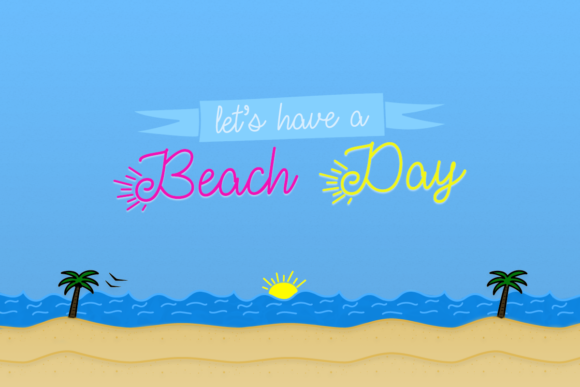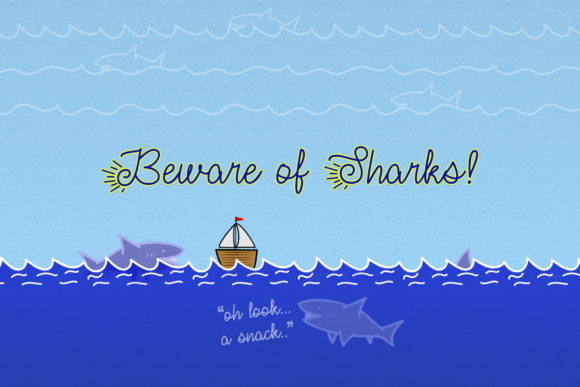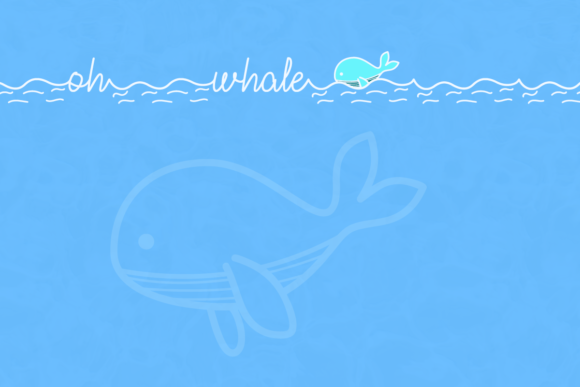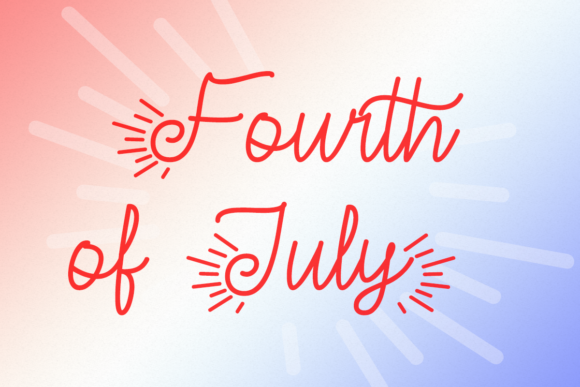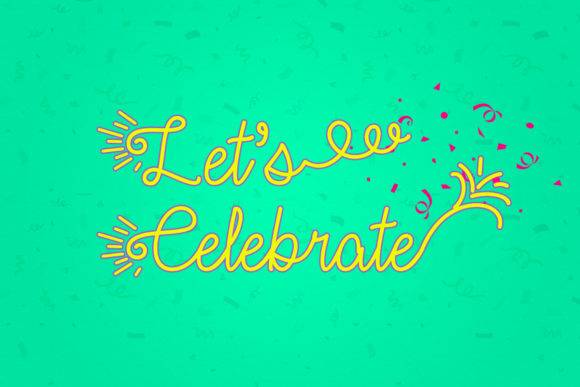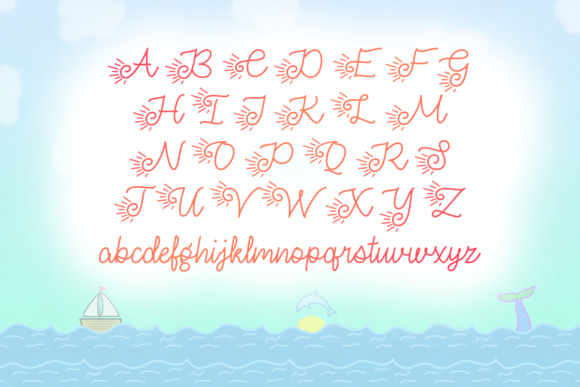
Introduction to Make Summer Fun Font
Do you remember the feeling of excitement when you’re working on a creative project and everything just falls into place? The sun is shining, your favorite music is playing, and your imagination is running wild. For designers, these moments are what make the long hours and late nights worth it. And, sometimes, all it takes is the right font to bring your vision to life.
Enter the Make Summer Fun Font, a beautiful cursive typeface that’s sure to add a touch of magic to your designs. With its timeless elegance and authentic calligraphy, this font is the perfect combination of classic style and friendly feel. Plus, with its cute summer-themed doodles, it’s the perfect design resource for creating original and outstanding designs that stand out from the crowd.
Key Features of Make Summer Fun Font
- Unique and playful design elements to add a touch of summer fun to your creative project
- Perfect for designers and artists looking to add a fun and carefree vibe to their work
Honest Review: Make Summer Fun Font
I recently stumbled upon the Make Summer Fun Font, and I must say it’s been a great addition to my design resources. This font is perfect for creating eye-catching visuals for summer-themed projects, such as advertisements, social media posts, or even a fun birthday party invitation. With its playful and vibrant aesthetic, I can already imagine it adding a lot of fun to my creative projects.
Here are some things that work well with this font:
- ✨ The font’s unique style and design make it perfect for creating a summer vibe.
However, I do have a few concerns:
- ⚠️ The font may not be suitable for formal or professional projects, as it has a more playful tone.
- ⚠️ Some characters may not be available in the font’s current version.
Overall, I’m really impressed with the Make Summer Fun Font. It’s a great design resource that can add a lot of personality to your creative projects. I highly recommend it for anyone looking for a fun and vibrant font to use in their summer-themed projects.
Make Summer Fun Font
The Make Summer Fun Font is a high-quality design resource perfect for any creative project. This font features a fun and playful style that’s great for summer-themed projects, but can also be used in a variety of other contexts.
Tips for Getting the Most Out of the Make Summer Fun Font
To get the most out of the Make Summer Fun Font, try the following:
- Use the font on a transparent background to add a fun and playful touch to your design.
- Combine the font with other design elements, such as graphics and textures, to create a unique and eye-catching look.
- Experiment with different font sizes and colors to add emphasis and visual interest to your design.
The Make Summer Fun Font is perfect for a variety of use cases, including:
- Summer-themed projects, such as invitations and party decorations.
- Children’s projects, such as coloring books and activity sheets.
- Branding and marketing materials, such as logos and social media graphics.